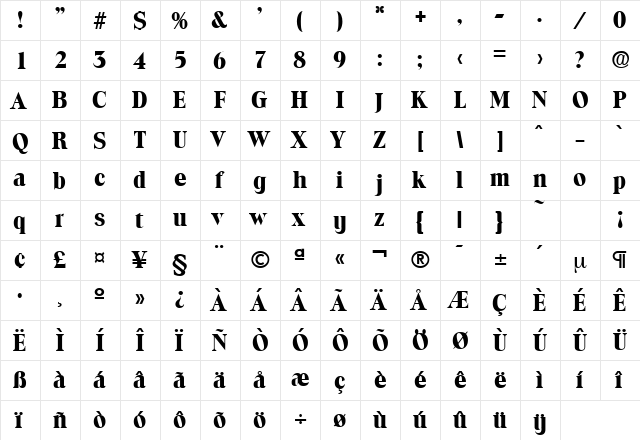
Toledo-Serial-ExtraBold Regular
Design Context for Toledo-Serial-ExtraBold Typeface
Toledo-Serial-ExtraBold offers clean, dependable letterforms without strong stylistic allegiance, making it a practical choice for designers who need flexibility. The heavy weight commands attention and anchors typographic hierarchies.